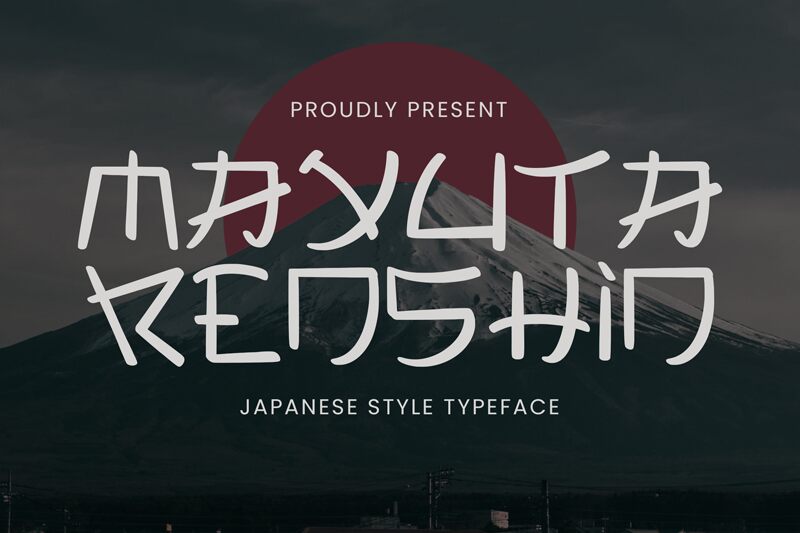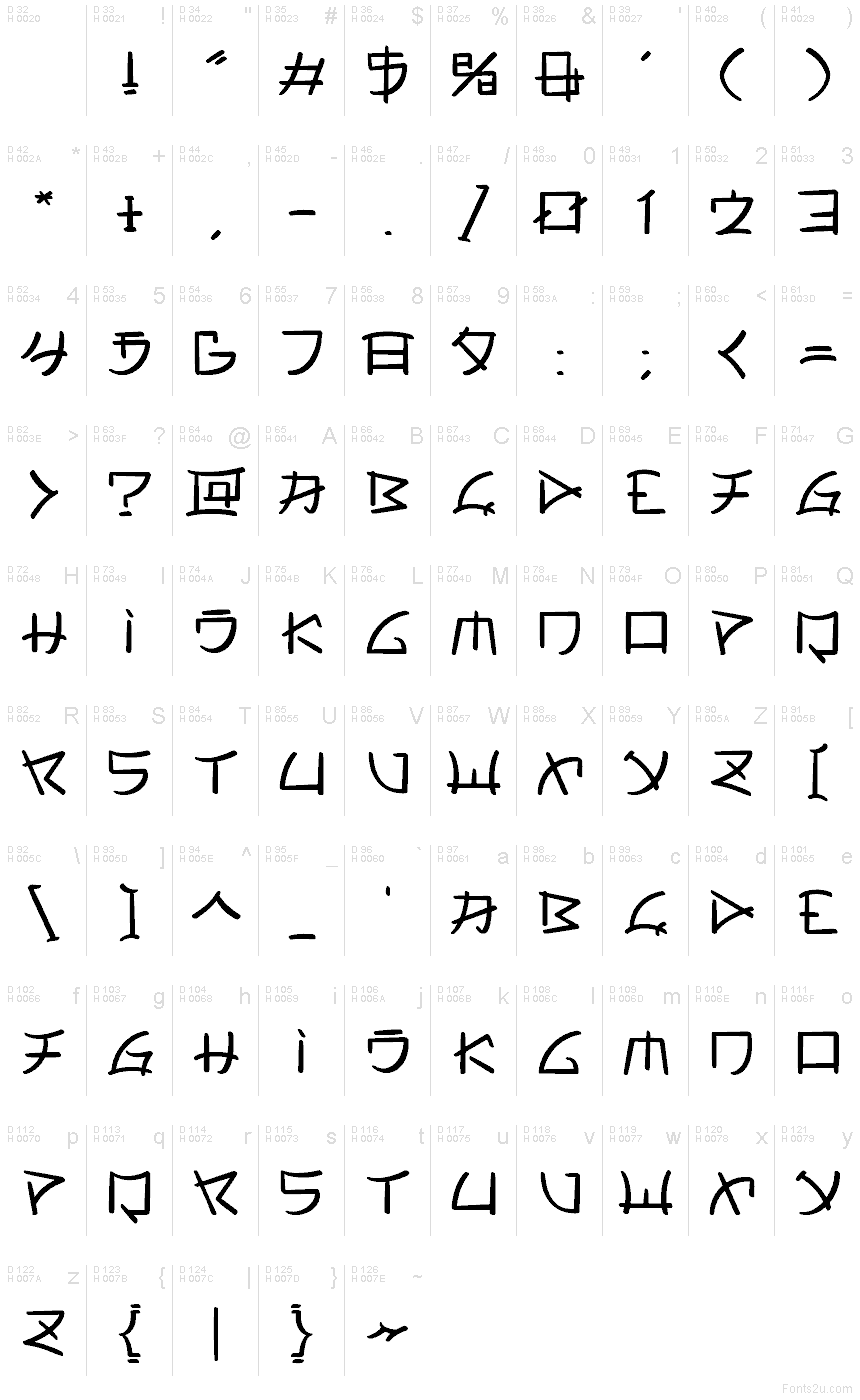
Mayuta Renshin Regular
Mayuta Renshin font by Ahweproject is a free faux-Japanese decorative typeface. Its wiry brush strokes, sharp angles, and quick, tapering ends feel hand-inked—lively and a little wild—while still reading clearly in short phrases. The rhythm is tight and energetic, giving headlines a snap that grabs attention without turning messy.
Using Mayuta Renshin, you’ll get instant atmosphere for ramen or sushi menus, street-food packaging, martial arts event posters, game splash screens, travel zines, and themed pop-up signage. This free font shines on large titles and logos; give it a touch of extra tracking to let those strokes breathe. Pair with a clean geometric sans to keep body text calm while the headline carries the flavor.